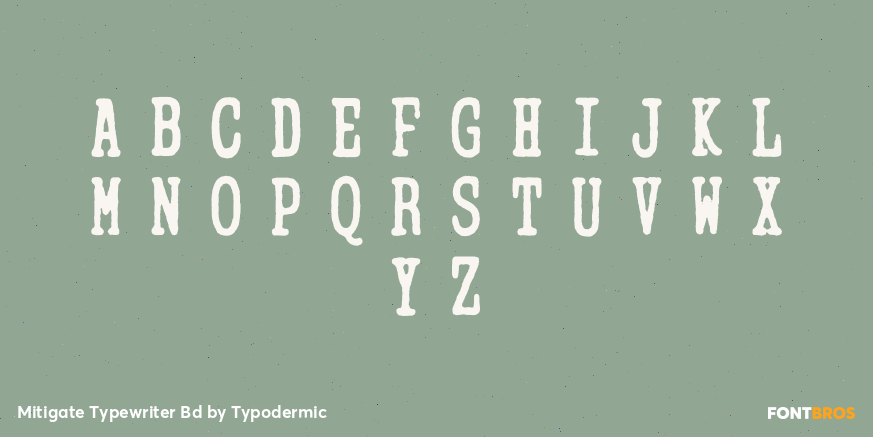
Mitigate Typewriter Bd
Buy NowMitigate Typewriter keeps Mitigate’s narrow monospaced slab-serif structure but replaces the clean family’s controlled contours with an uneven, worn-ribbon surface. Broken ink, softened edges, and irregular pressure make the letters resemble a handled typewritten document while retaining the compact pitch that lets long identifiers fit. The Bold style applies the same treatment with a darker, denser impression.
As a distressed typewriter font, Mitigate Typewriter suits fictional case files, recovered correspondence, documentary title cards, archival-exhibition graphics, mystery-game evidence, escape-room clues, period props, and album or theatre artwork built around documents. Use it for titles, labels, quotations, and short passages at sizes where the damaged detail remains visible; choose the clean Mitigate styles for small specifications, long reading, or dense data.